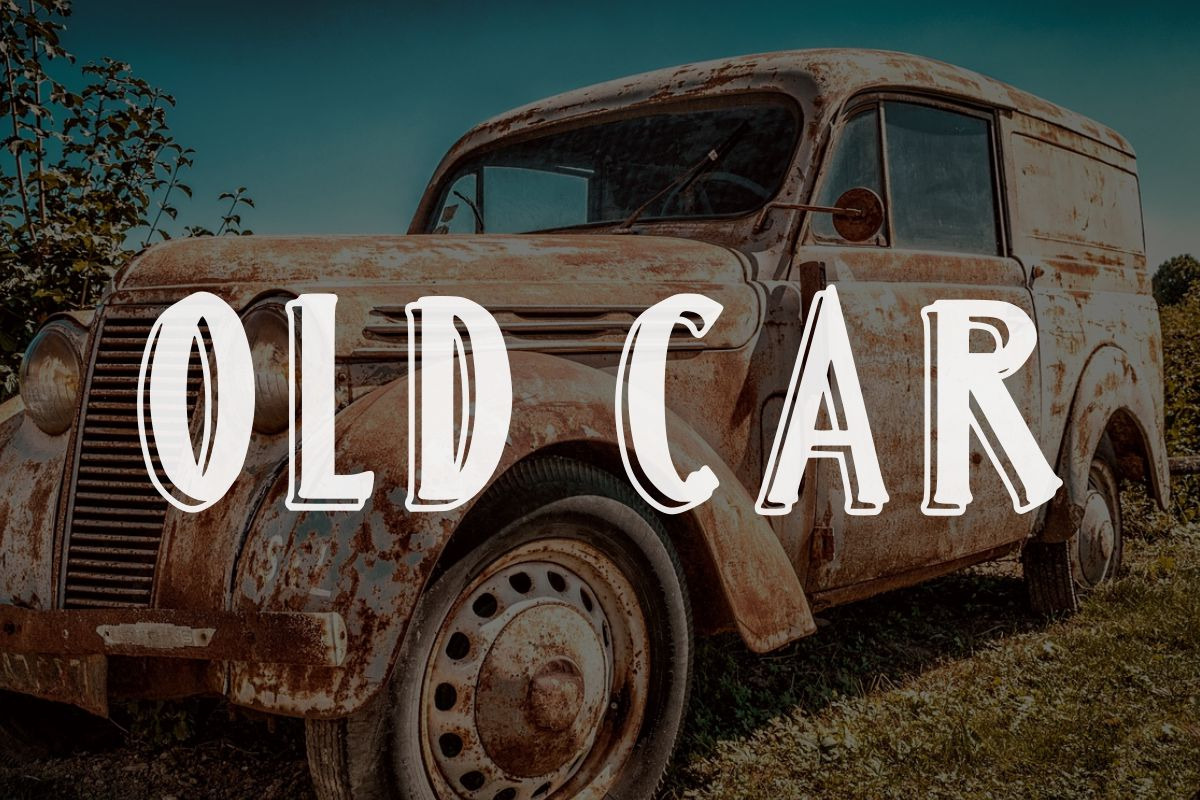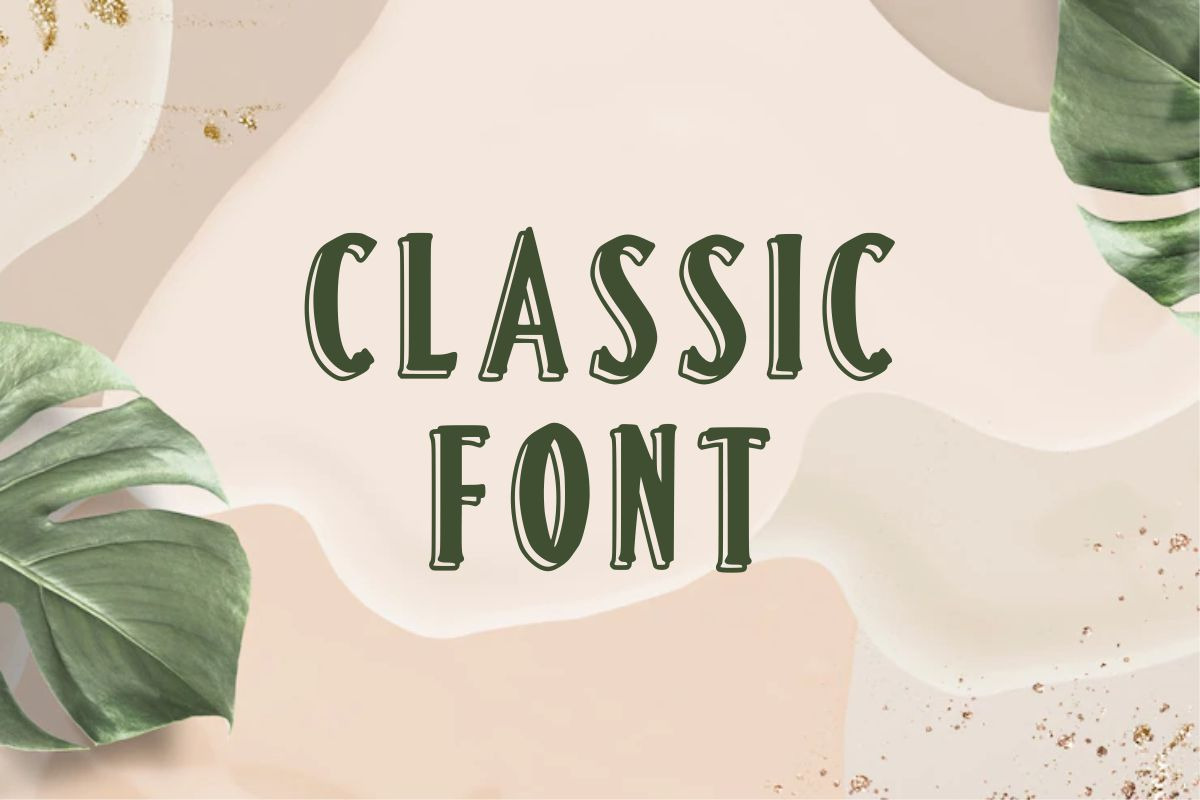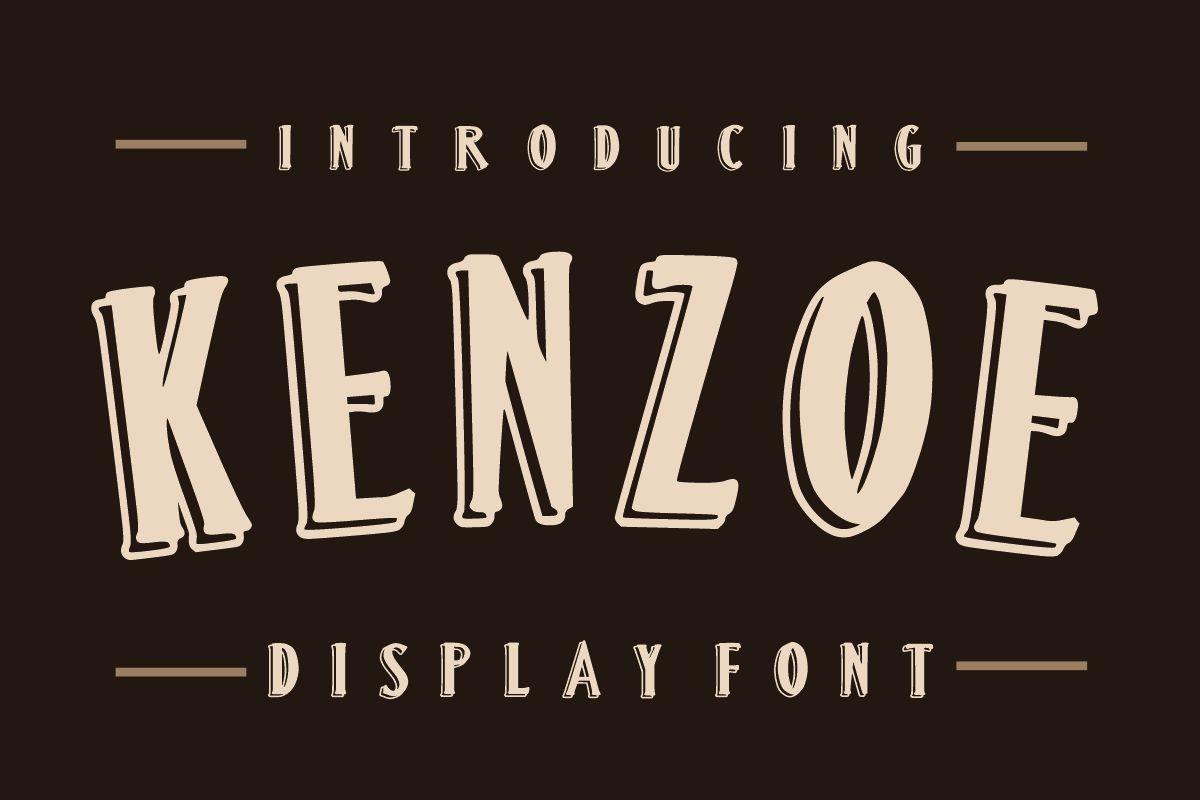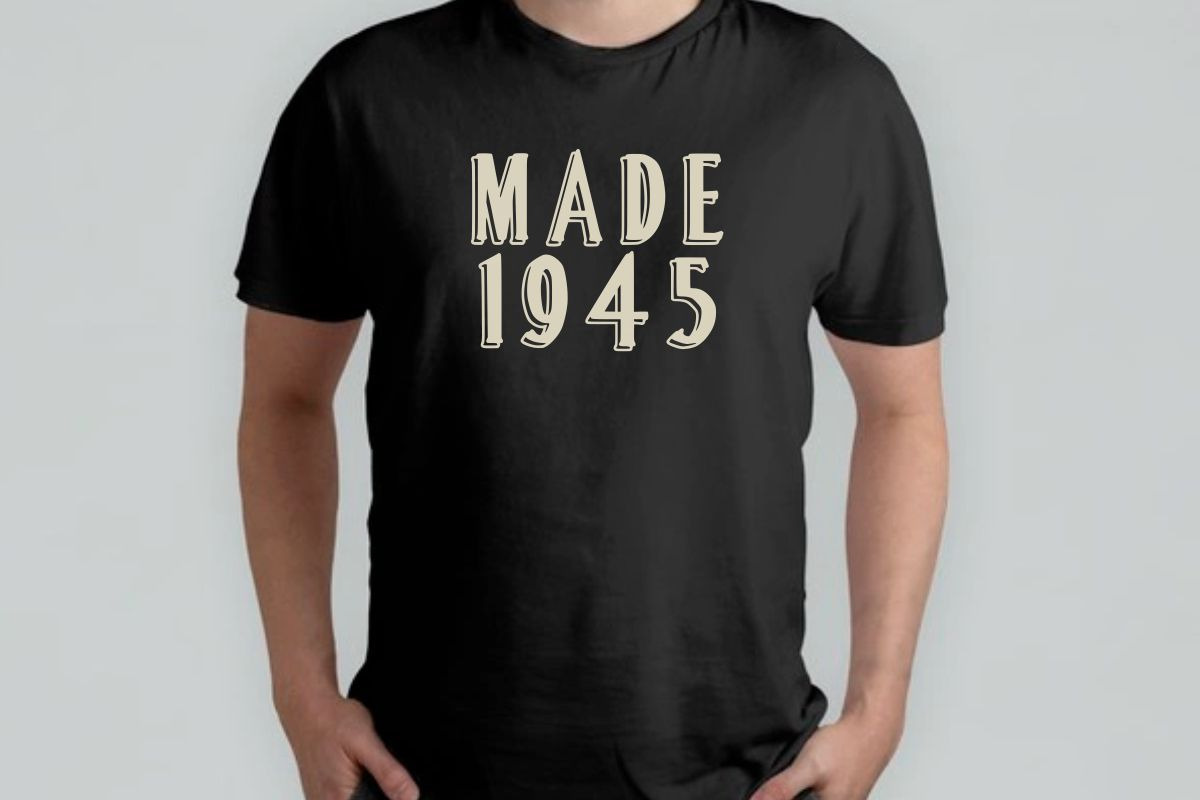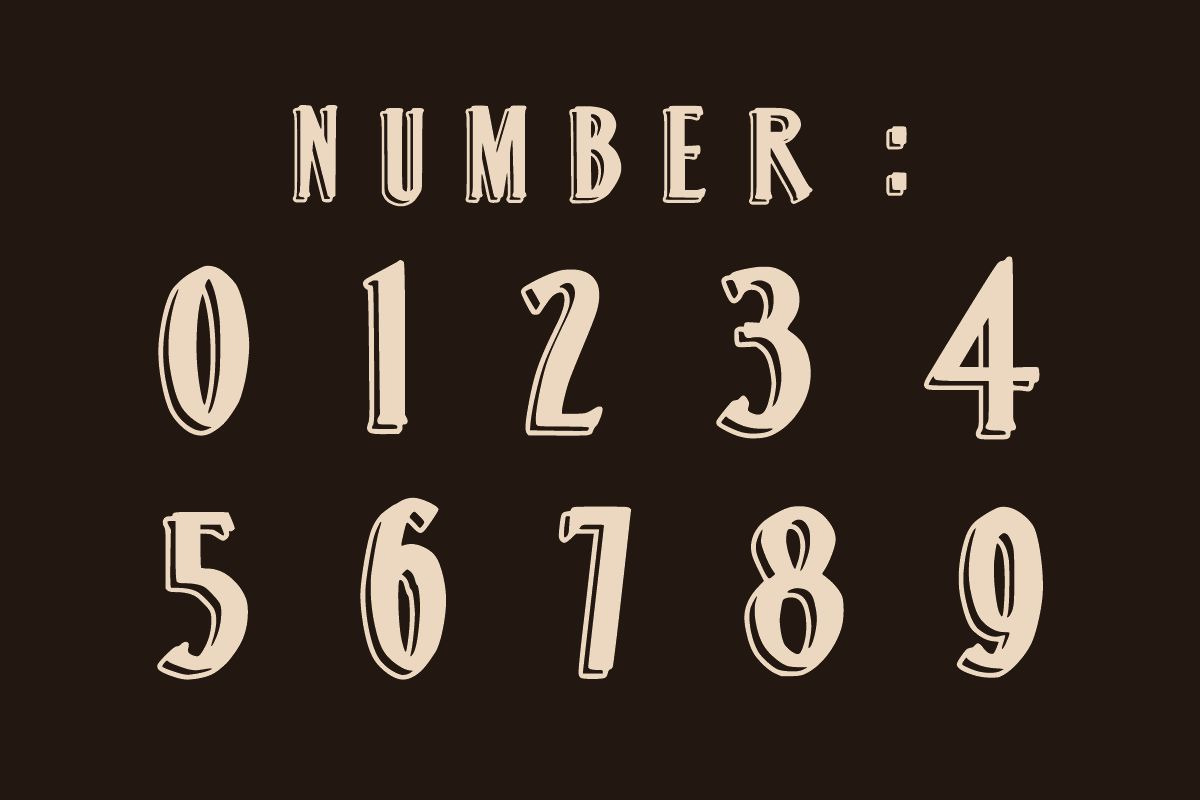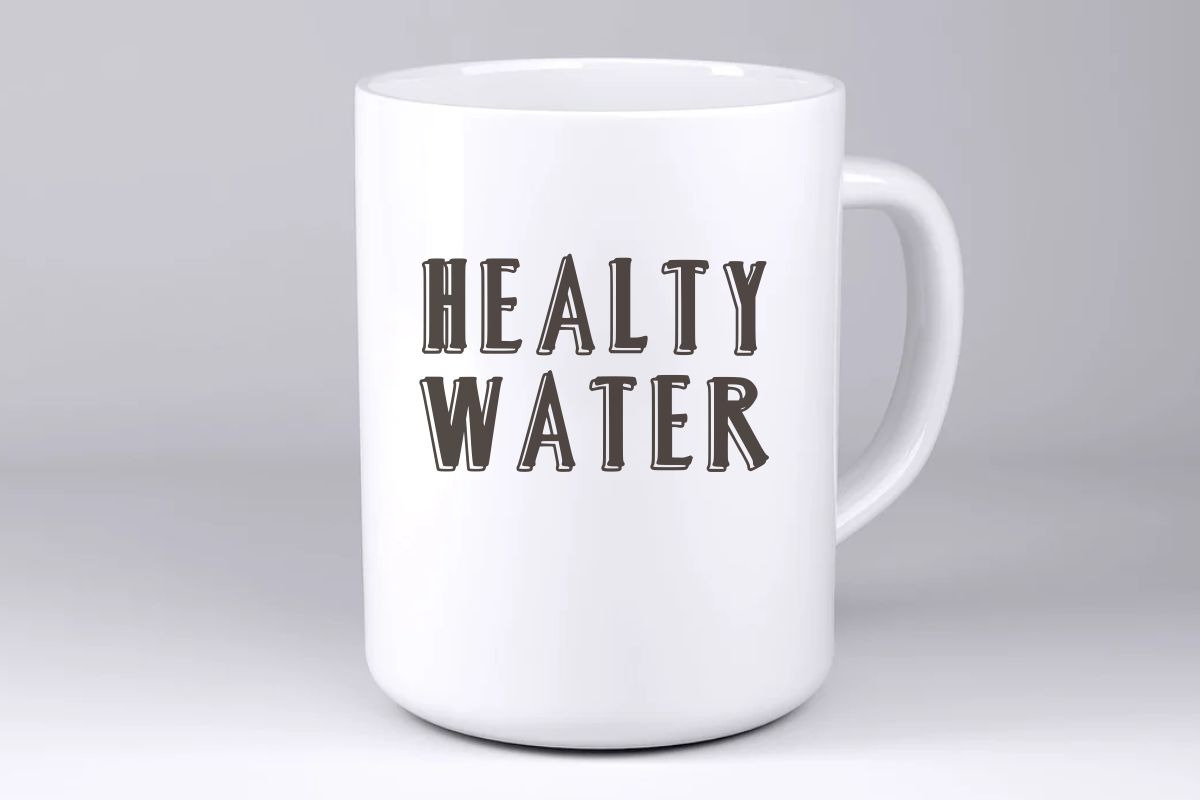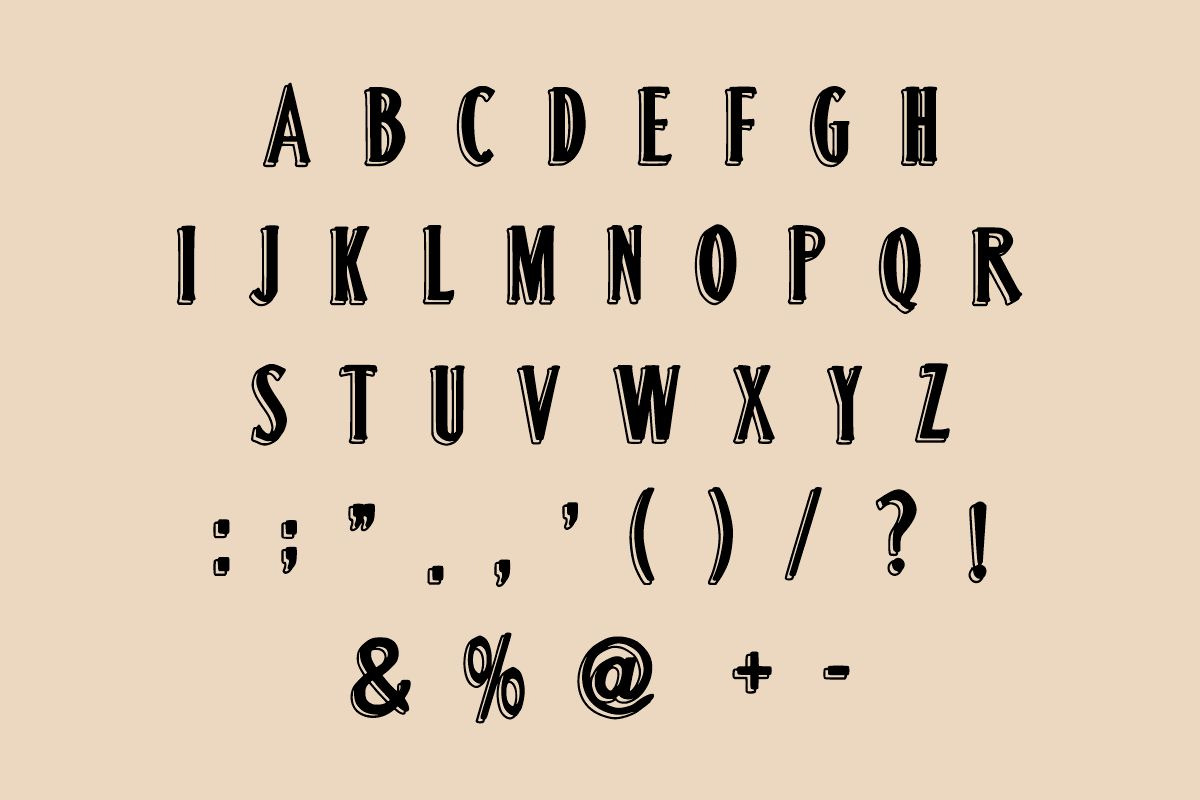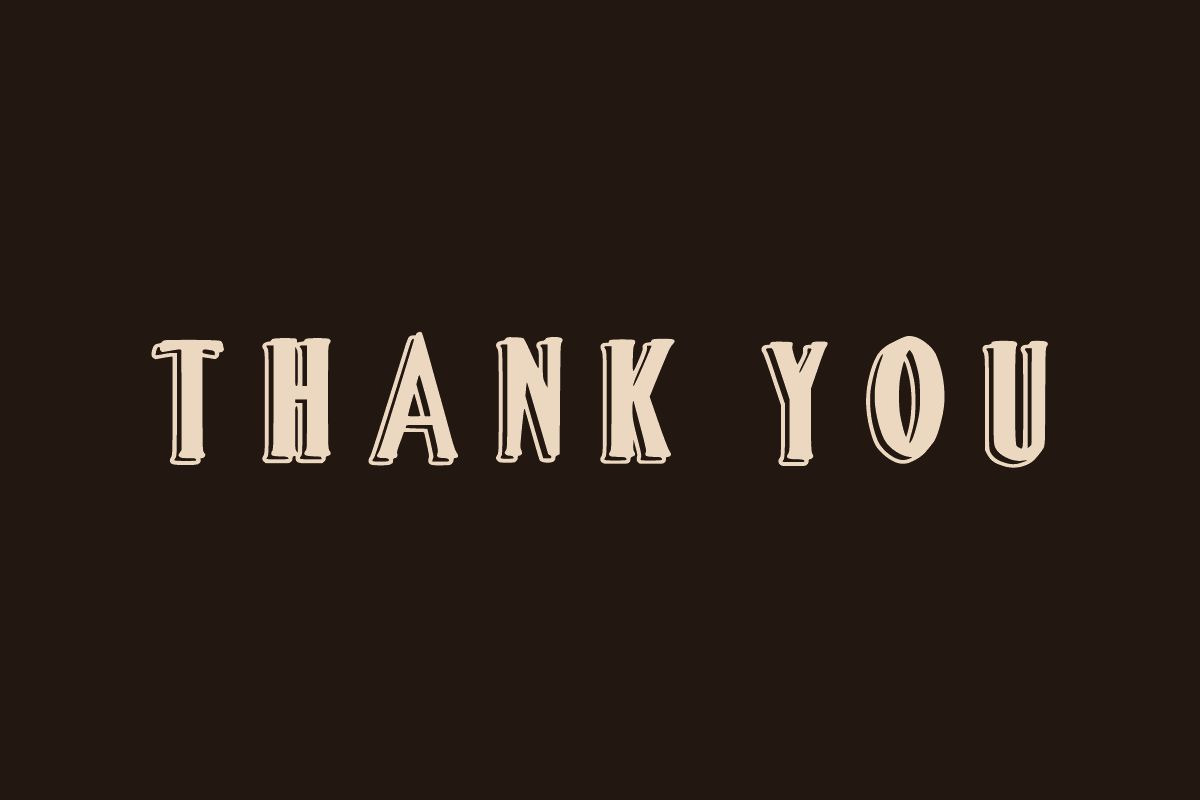
Kenzoe
Kenzoe is a vintage, classic, retro, and bold display font. You can use it for various projects such as blog posts, logos, branding, ads, invitations, greeting cards, planners, photo albums, decorations, and much more.